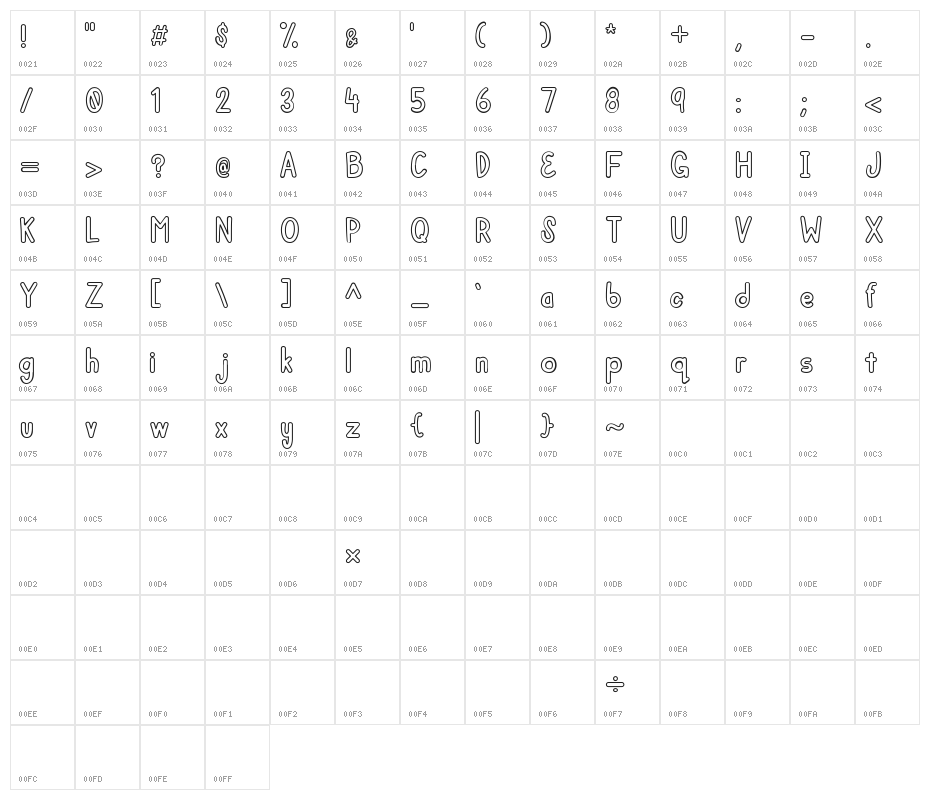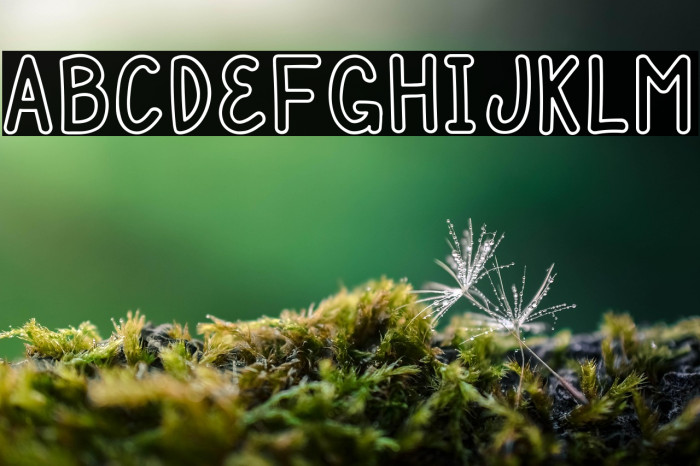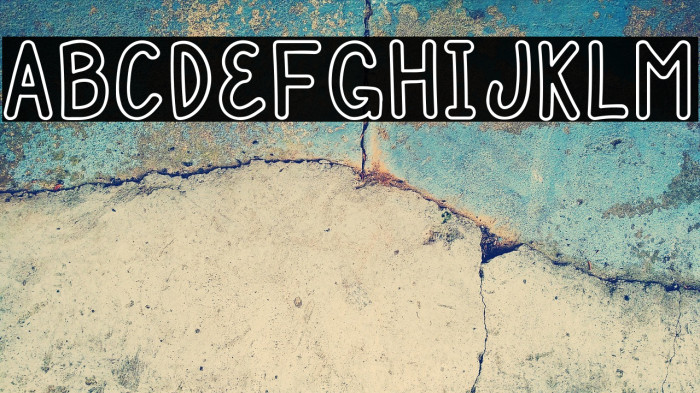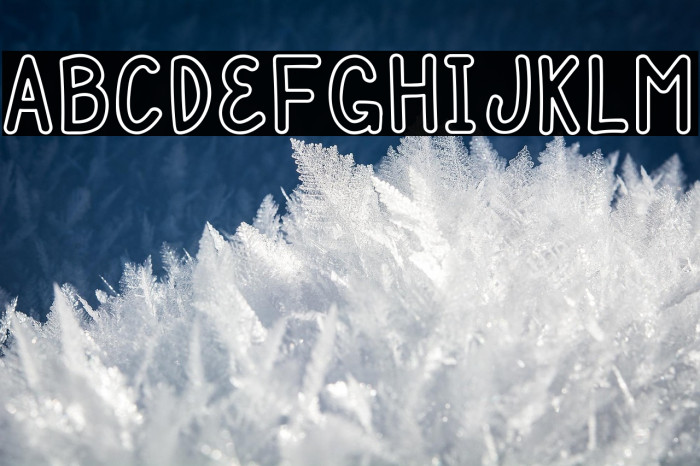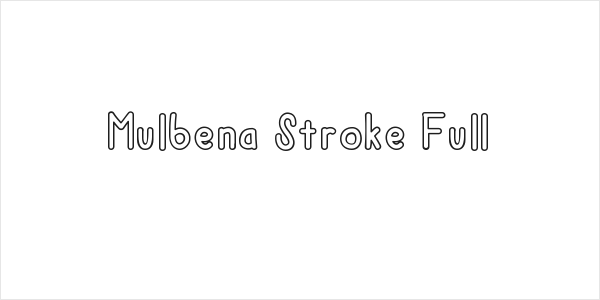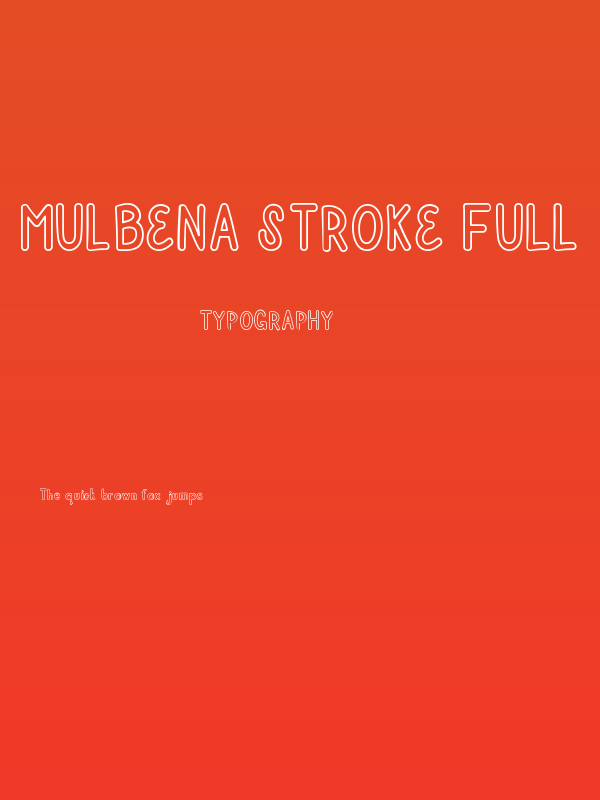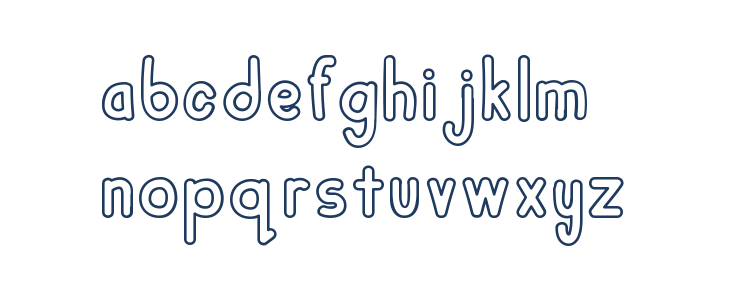
Mulbena Stroke Full Font
Mulbena Stroke Full Description
This font features a playful and bold outline style, characterized by its thick strokes and hollow centers. The uppercase and lowercase letters maintain a consistent width, creating a cohesive and uniform appearance. The rounded edges and smooth curves give it a friendly and approachable feel. The numerals and special characters follow the same design principles, ensuring a harmonious look across all elements. The font's unique outline design makes it stand out, making it suitable for creative and eye-catching projects.
| Overall Style | Playful, Modern |
| Proposed Projects | Ideal for children's books, playful branding, posters, and creative digital content. |